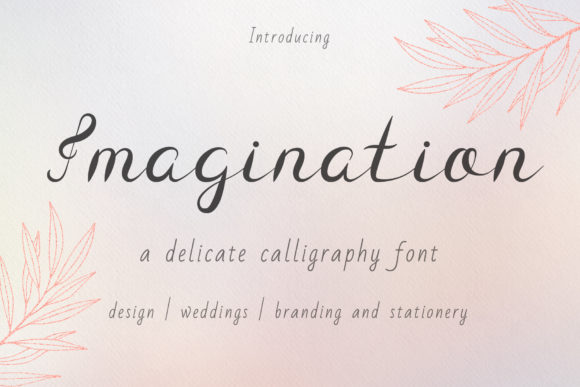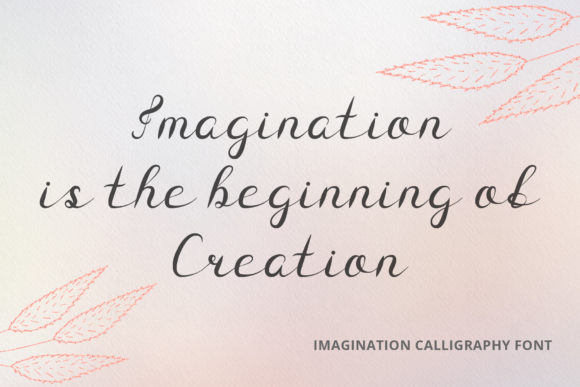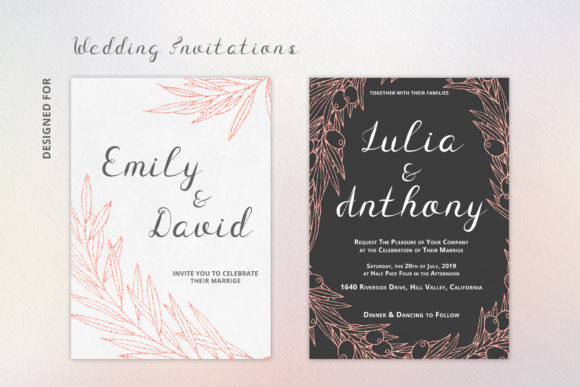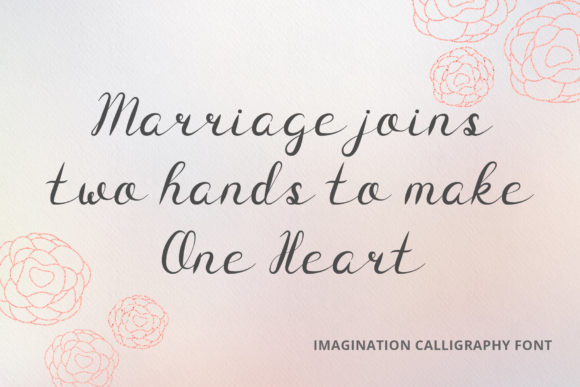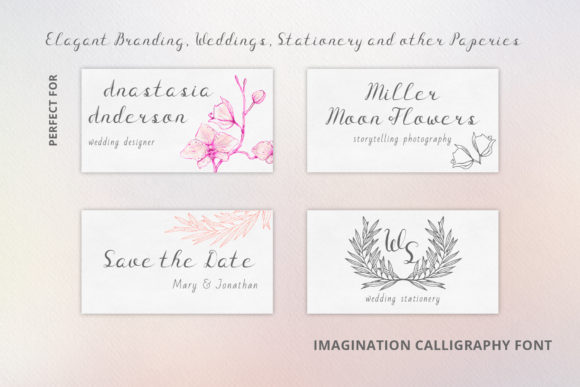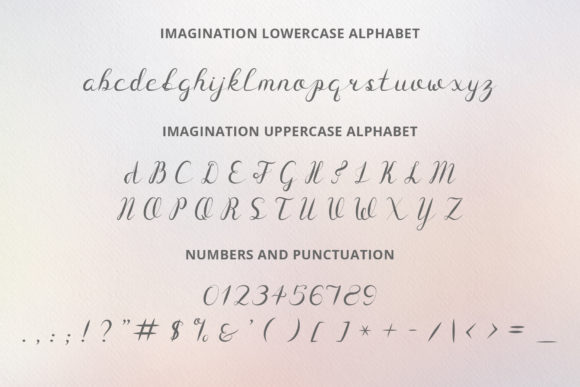
Imagination Font
About Imagination Font
Imagination is a stunning handwritten font with a charming twist. It will add a romantic feel to any design project!